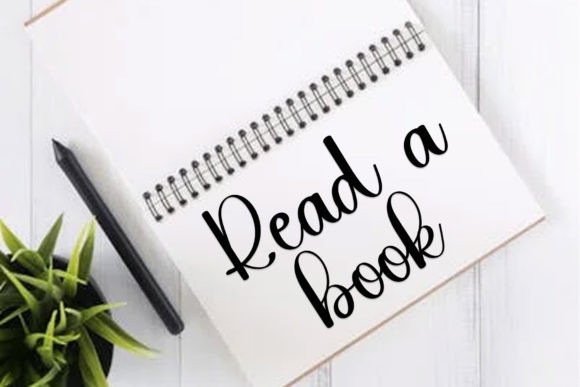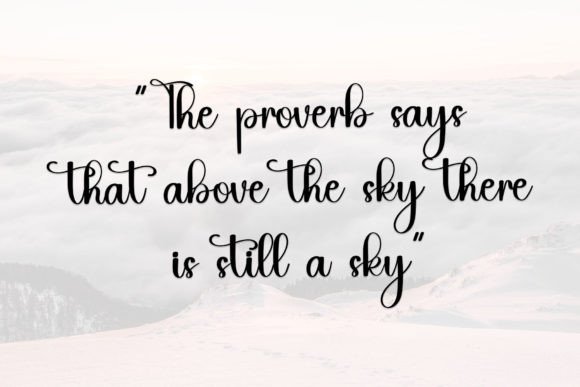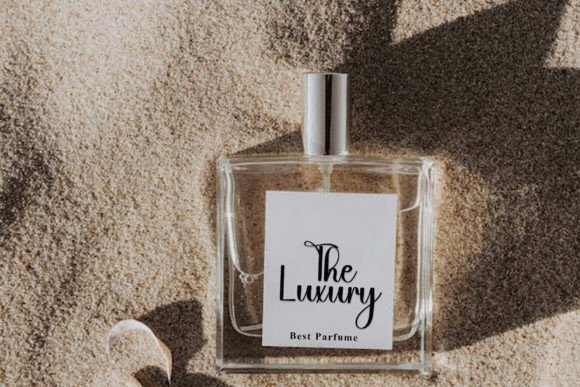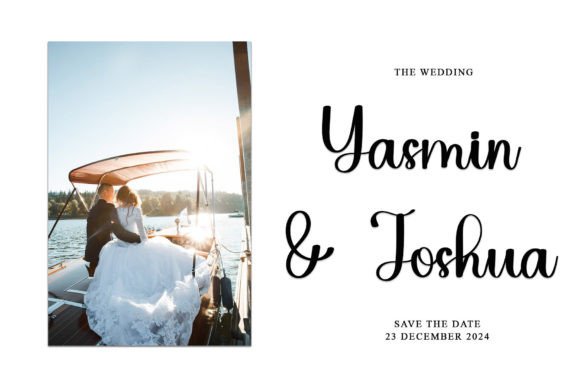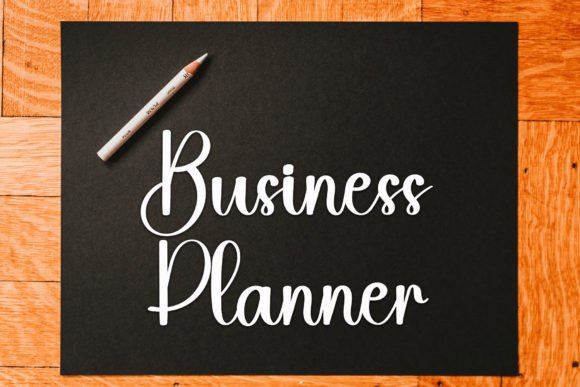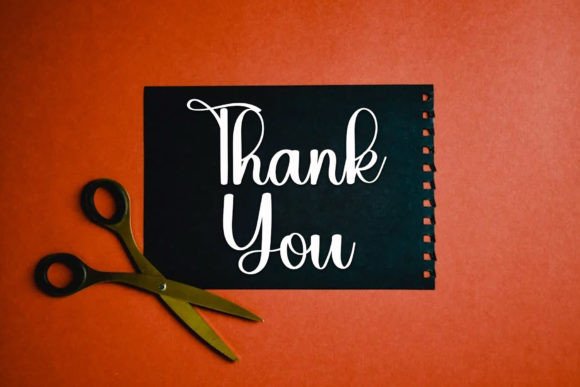
Eastern Font: Elevate Your Designs with Elegance and Charm
In the world of typography, fonts play a crucial role in conveying the tone and personality of a design. For designers and crafters looking to add a touch of sophistication and warmth to their projects, the Eastern Font is an excellent choice. This stylish font exudes elegance and charm, making it perfect for a variety of applications, from invitations and branding to social media and more.
The Characteristics of Eastern Font
Eastern Font is distinguished by its fluid strokes and natural flow, which create a captivating and sophisticated look. The font’s design is characterized by:
- Fluid Strokes: The font features smooth, flowing strokes that give it a dynamic and elegant appearance.
- Natural Flow: The natural flow of the font’s lines and curves creates a sense of warmth and approachability.
- Elegant Charm: The font’s overall design exudes a sense of refinement and sophistication, making it perfect for designs that require a touch of elegance.
Uses of Eastern Font
Eastern Font is a versatile typeface that can be used in a variety of design applications, including:
- Invitations: Add a personal touch to your wedding invitations, birthday party invites, or any other special occasion with the Eastern Font.
- Branding: Use the font to create a unique and memorable brand identity for your business or product.
- Social Media: Elevate your social media posts and stories with the Eastern Font, making them stand out in a crowded online space.
- Stationery: Create beautiful stationery, such as letterheads, greeting cards, and gift tags, with the Eastern Font.
Benefits of Using Eastern Font
The Eastern Font offers several benefits to designers and crafters, including:
- Unique and Creative: The font’s distinctive design allows you to create unique and creative designs that stand out from the crowd.
- Time-Saving: With the Eastern Font, you can quickly and easily add a touch of elegance and sophistication to your designs, saving you time and effort.
- Versatile: The font’s versatility makes it suitable for a wide range of design applications, from digital to print.
Tips for Using Eastern Font Effectively
To get the most out of the Eastern Font, follow these tips:
- Pair with Complementary Fonts: Combine the Eastern Font with complementary fonts to create a visually appealing and harmonious design.
- Experiment with Colors: Try out different colors and color combinations to find the perfect match for your design.
- Pay Attention to Spacing: Ensure that the font is properly spaced to maintain its elegance and sophistication.
In conclusion, the Eastern Font is a stylish and elegant typeface that can elevate your designs and add a touch of sophistication and warmth. With its fluid strokes and natural flow, this font is perfect for designers and crafters looking to create captivating and unique designs. Whether you’re working on invitations, branding, social media, or stationery, the Eastern Font is an excellent choice.